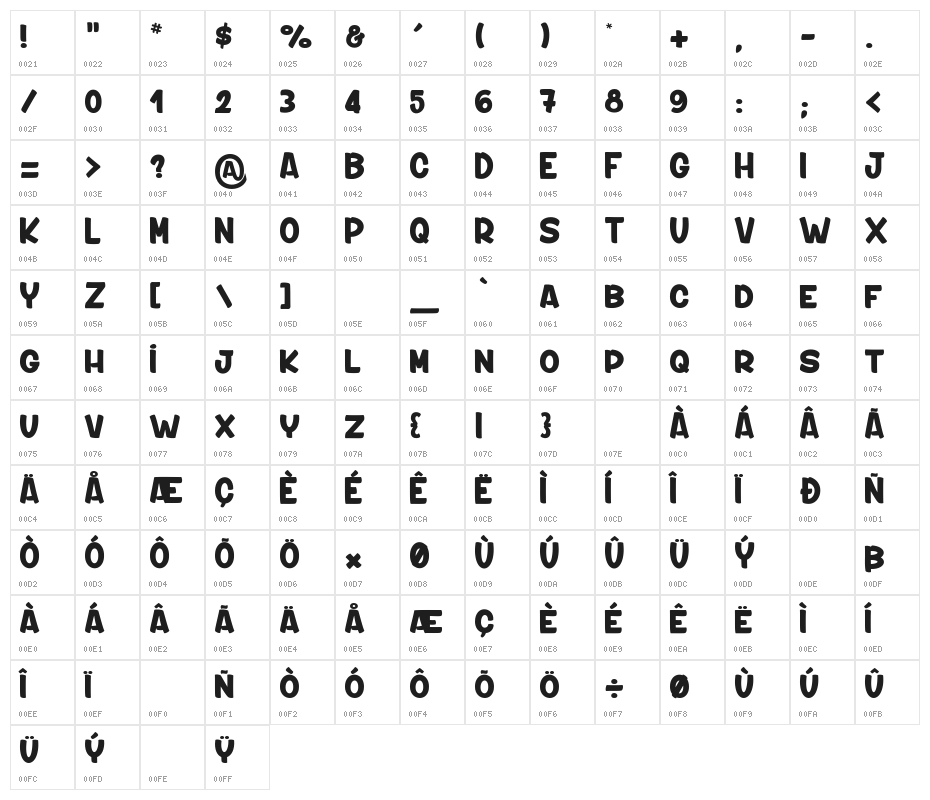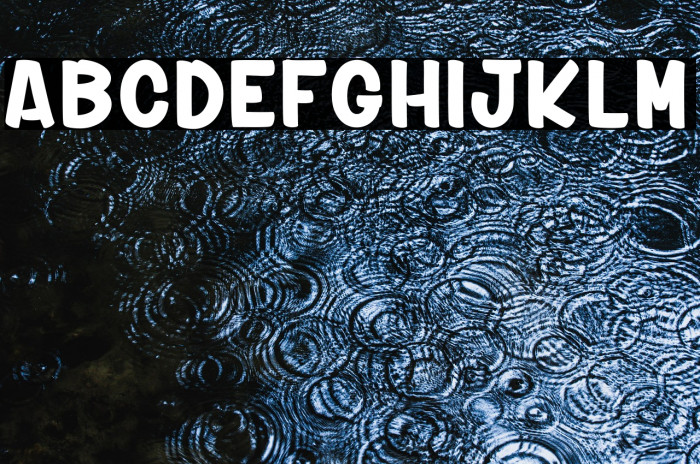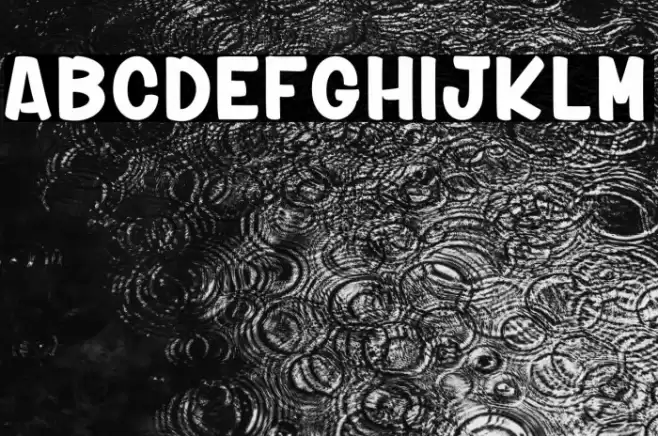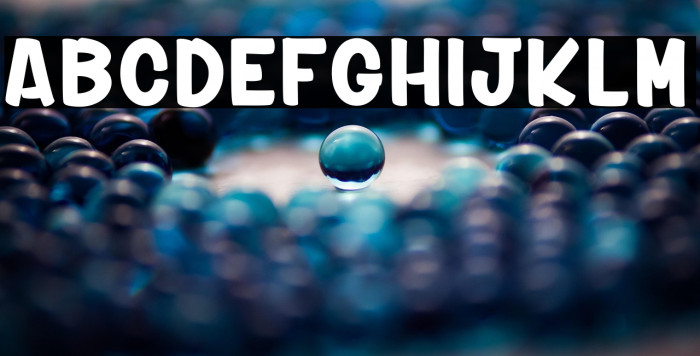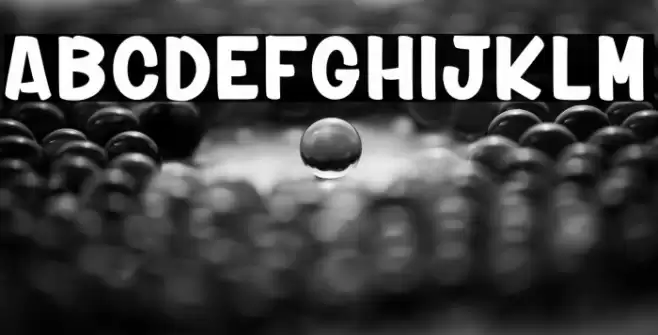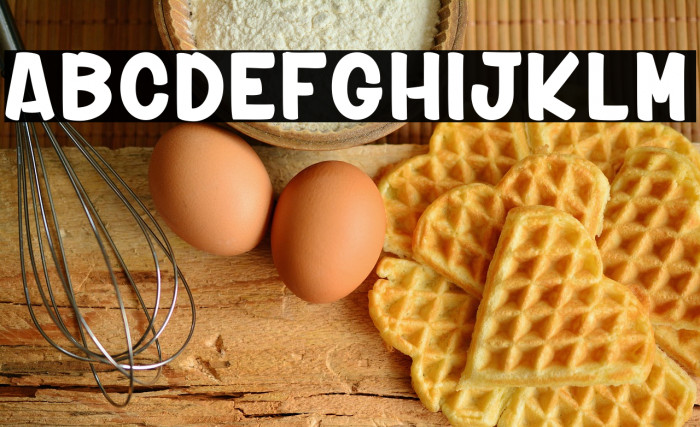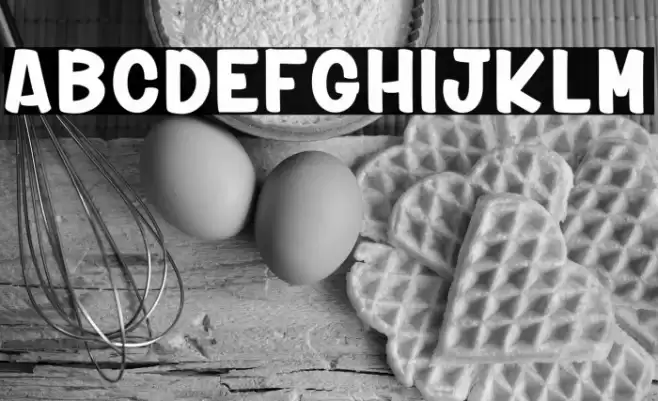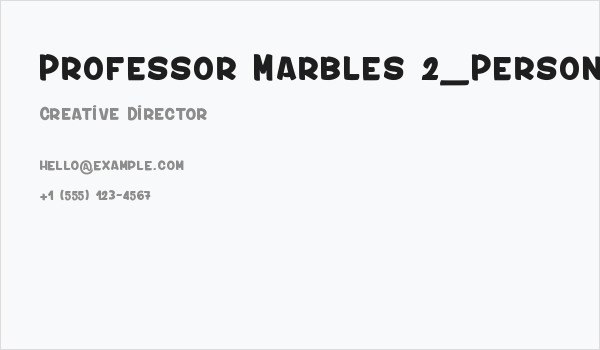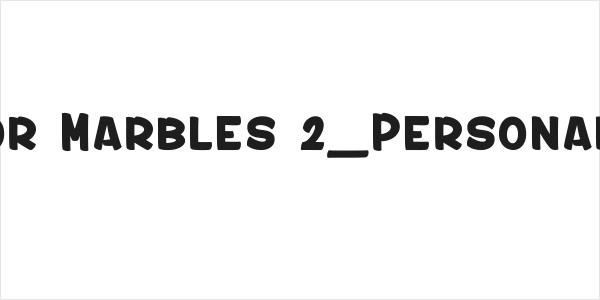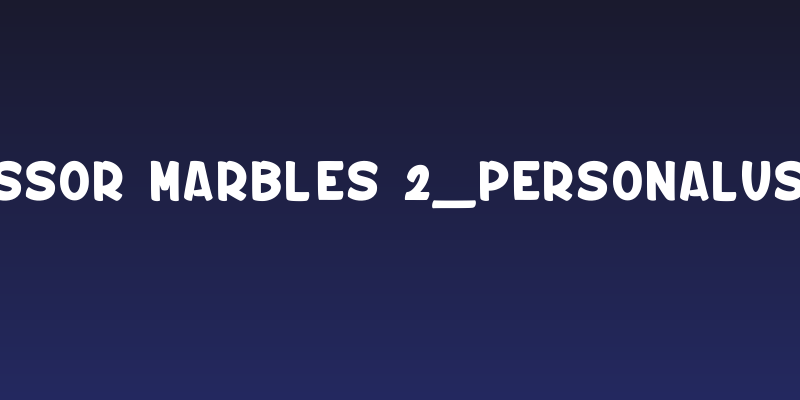
Professor Marbles 2_PersonalUseOnly Font
Professor Marbles 2_PersonalUseOnly Description
This playful and bold font features thick, rounded characters that convey a sense of fun and creativity. The letters are slightly irregular, adding a whimsical touch that makes it stand out. Its boldness ensures high readability, while the rounded edges soften the overall appearance, making it approachable and friendly. The numbers and special characters maintain the same playful style, ensuring consistency across all text elements. This font is perfect for projects that aim to capture attention and convey a lively, informal tone.
| Proposed Projects | Ideal for children's books, playful branding, event posters, and creative social media graphics. |